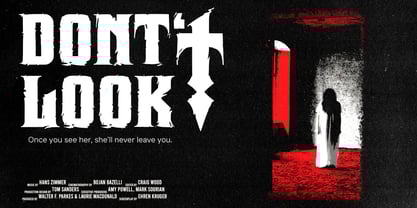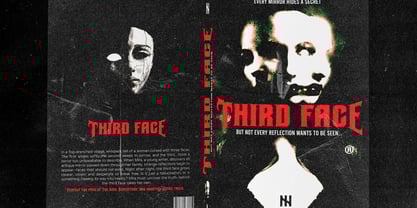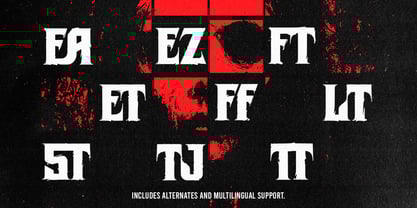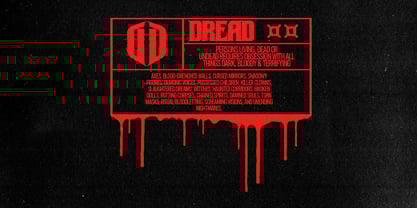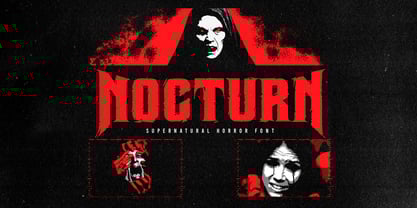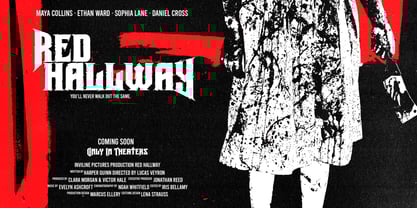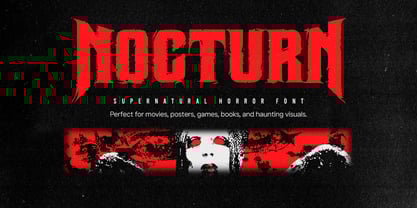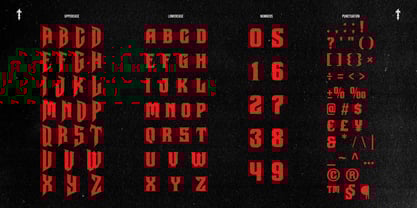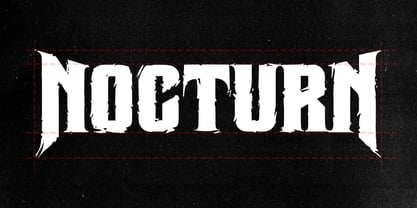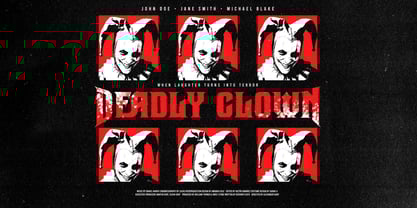
Nocturn
Nocturn – Display Grunge Font. Step into the shadows with Nocturn, a supernatural display font that combines gothic intensity with raw grunge textures. Designed for titles that haunt and visuals that linger, Nocturn evokes the eerie aesthetics of classic horror cinema and occult symbolism. Every character is crafted with sharp, jagged edges and unsettling asymmetry, giving your words a terrifying presence on posters, movie titles, album covers, or Halloween merchandise. Nocturn is a supernatural horror typeface packed with uppercase & lowercase letters, numbers, punctuations, alternates, ligatures, and multilingual support—perfect for horror movie posters, haunted house flyers, gothic titles, Halloween designs, and dark-themed branding that craves eerie impact and distressed energy.